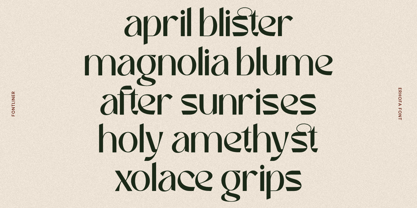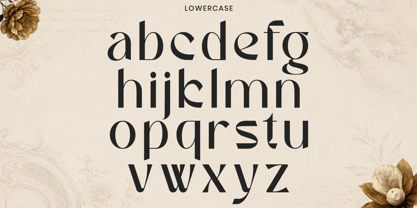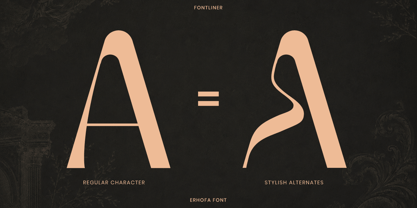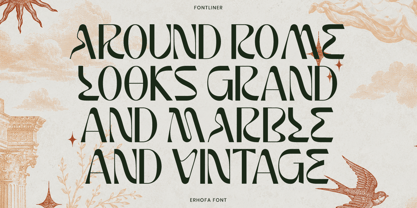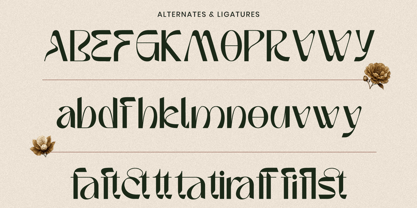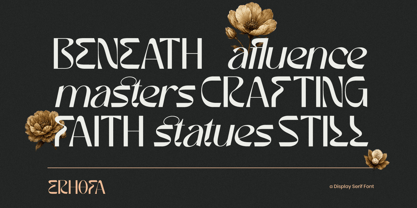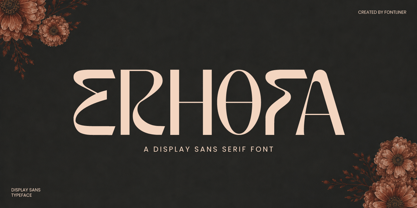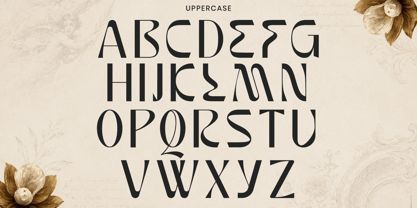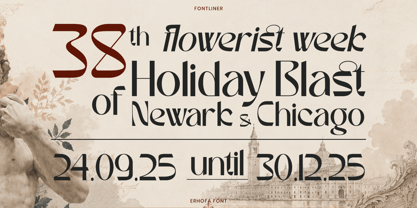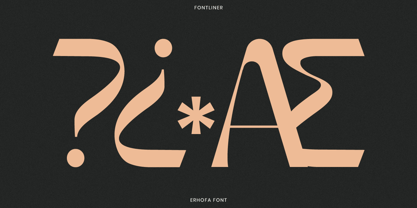
Erhofa
Erhofa is a sophisticated display sans serif font that blends modern elegance with artistic character. Designed with distinctive high-contrast strokes, graceful curves, and stylish unconventional letterforms, this typeface creates a luxurious visual identity perfect for premium branding. Its fashion-forward aesthetic makes it ideal for logos, editorial layouts, beauty packaging, perfume labels, boutique branding, wedding invitations, and upscale social media content.
Crafted for designers who want typography with personality, Erhofa offers a refined balance between contemporary minimalism and decorative expression. The unique alternates and ligatures add exclusivity and versatility, allowing you to create standout wordmarks and unforgettable headlines effortlessly. Whether you're building a luxury fashion campaign or an elegant branding project, this font delivers a premium designer feel. Erhofa is a powerful creative asset for branding specialists, graphic designers, and content creators looking for a distinctive display font that commands attention.
• Regular and Italic Style
• Stylistic Alternates
• Stylistic Ligatures
• Uppercase and Lowercase
• Number and Punctuation
• Multilingual Support